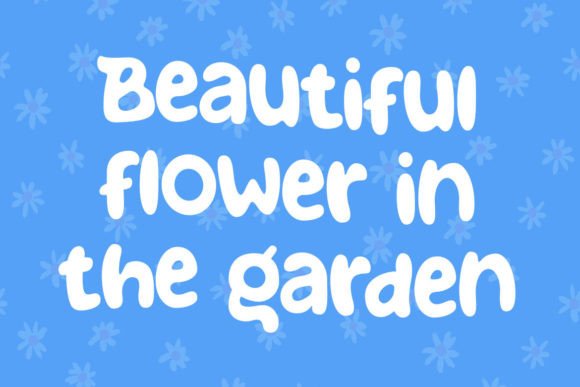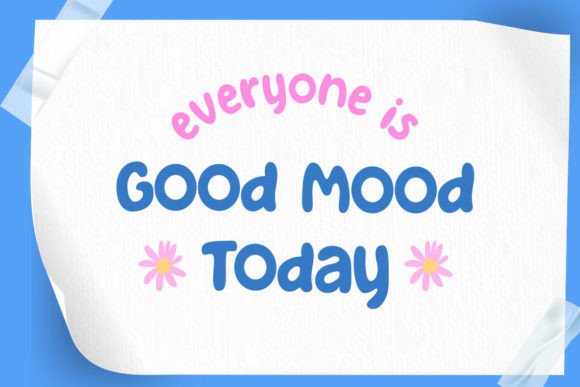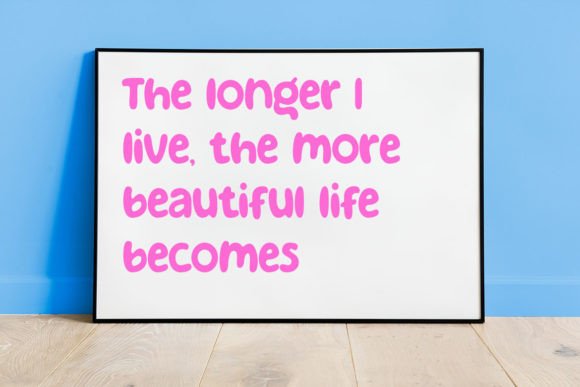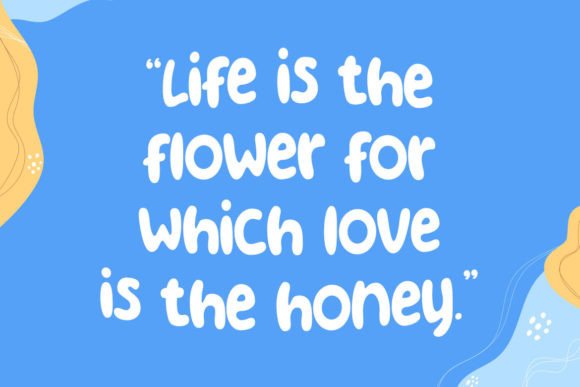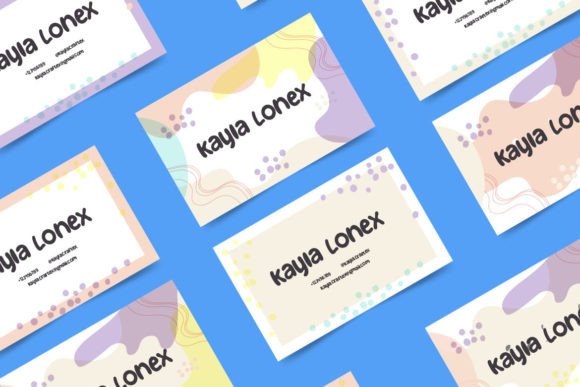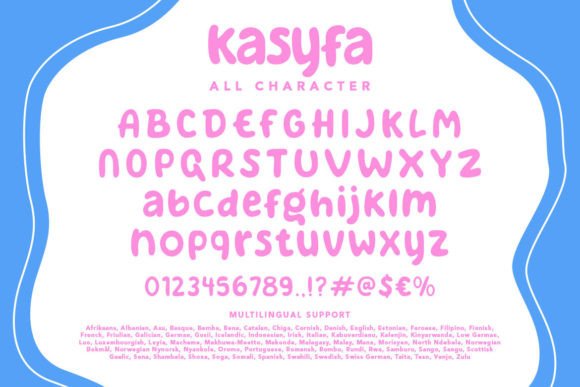
Introduction to Kasyfa Font
As a designer, have you ever found yourself in the midst of a creative project, staring at a blank canvas, searching for the perfect font to give your design that extra oomph? You know, that one font that sets your work apart from the rest and leaves a lasting impression on your audience. For many designers, this moment of inspiration is what drives them to explore new design resources, and that’s exactly where the Kasyfa Font comes in.
This charming display typeface font has been making waves in the design community with its distinctive handwritten characters, perfect for adding a bold touch to any project. Whether you’re working on a branding project, designing a wedding invitation, or creating a social media post, the Kasyfa Font is an excellent choice to elevate your design game.
Key Features of Kasyfa Font
- Unique and modern design style, making it an excellent choice for creative projects requiring a distinctive look.
Honest Review: Kasyfa Font
I recently stumbled upon the Kasyfa Font, and I’m excited to share my thoughts on this design resource. As a designer, I’m always on the lookout for high-quality fonts that can elevate my creative projects.
What works well: ✨ The Kasyfa Font has a unique and modern aesthetic that’s perfect for digital design projects. The font is highly customizable, and its transparent background makes it easy to use on various design elements. The font is also free to download, which is a huge plus for designers on a budget.
- Unique and modern aesthetic
Overall, I’m impressed with the Kasyfa Font’s potential as a design resource. While it may not be perfect, it’s a great option for digital design projects, and its free download makes it a great addition to any designer’s toolkit.
Kasyfa Font is ideal for a variety of design projects, including logos, business cards, and presentations. Its high-quality design and versatility make it a great resource for any creative project, from social media graphics to brochures and flyers.
Alternatives to Kasyfa Font
Montserrat is a high-quality sans-serif font perfect for creative projects that require a modern and urban feel. It’s free to download and comes with a transparent background, making it ideal for designing logos and branding materials. Montserrat is a great alternative to Kasyfa Font for projects that need a sleek and sophisticated look.
When to use: Logos, branding materials, and digital products.
Comparison to Kasyfa Font: Montserrat has a more geometric and modern feel compared to Kasyfa Font’s unique, hand-drawn style.
Great Vibes is a beautiful, high-quality script font that’s perfect for creative projects that require a touch of elegance and sophistication. It’s free to download and comes with a transparent background, making it ideal for designing wedding invitations and other special occasion materials. Great Vibes is a great alternative to Kasyfa Font for projects that need a romantic and whimsical feel.